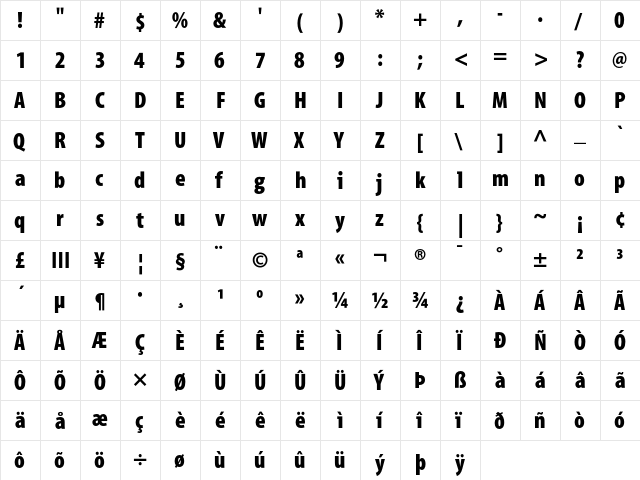
BerlinMyriad BlackCond
Design Context for BerlinMyriad Typeface
BerlinMyriad takes a measured approach to typography — its balanced proportions and neutral character make it a reliable workhorse for both digital and print work. The condensed width makes it efficient for tight spaces without sacrificing legibility.